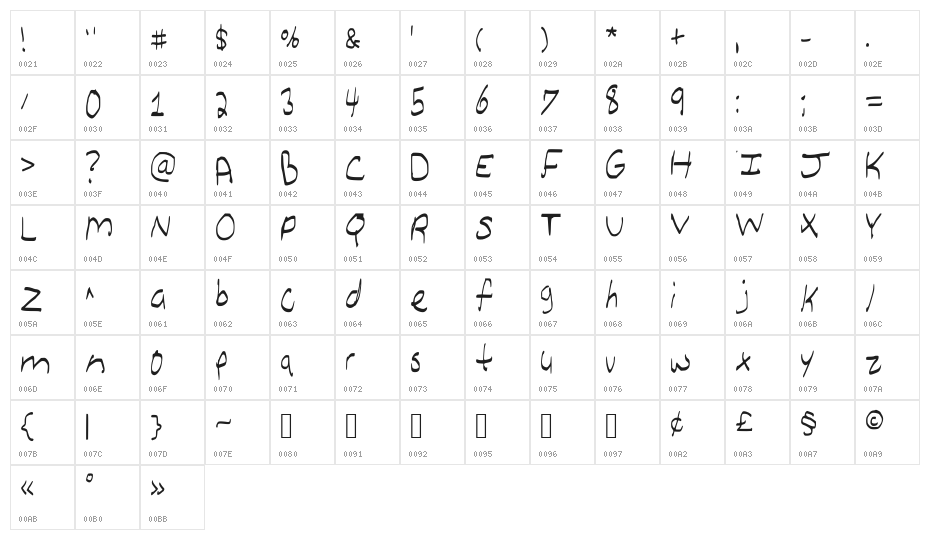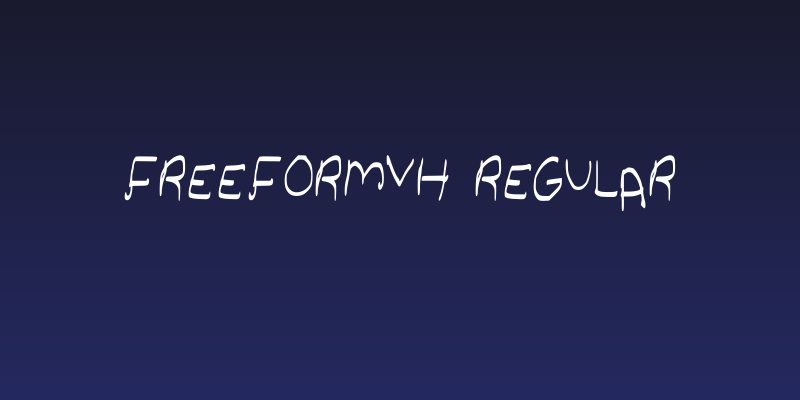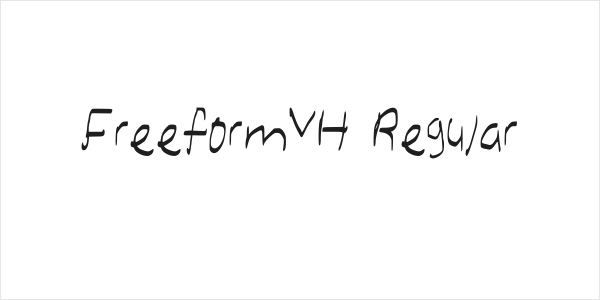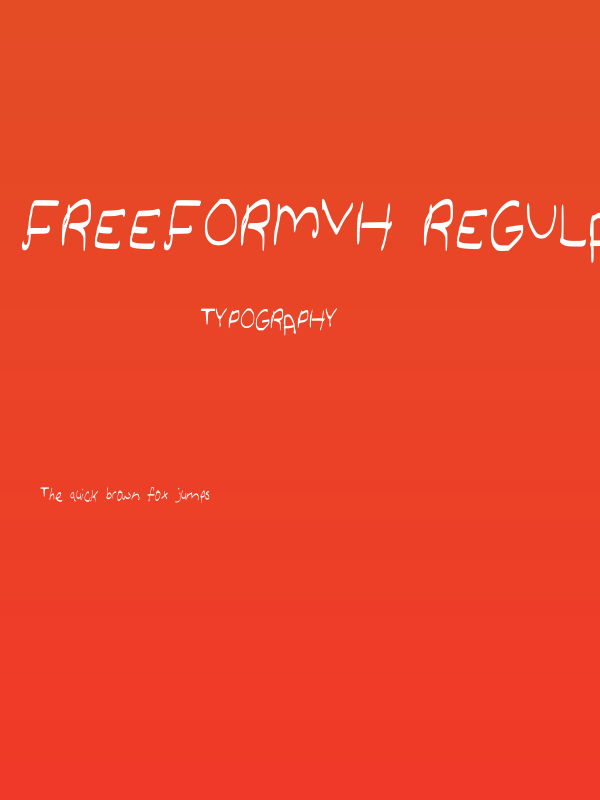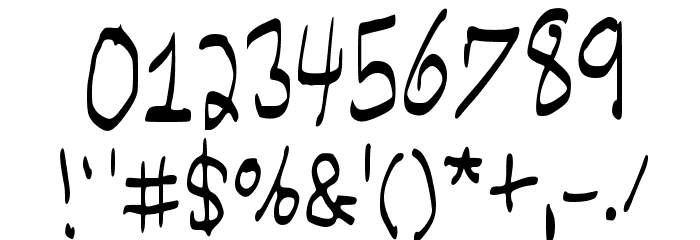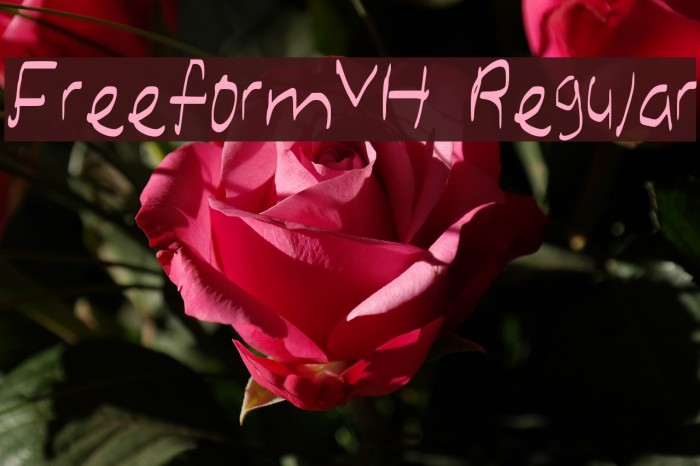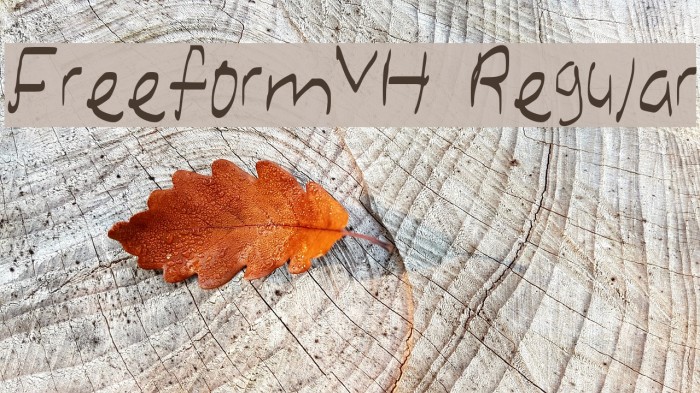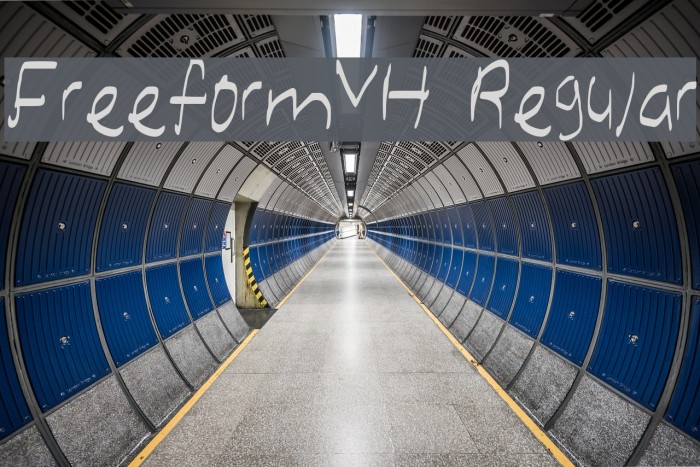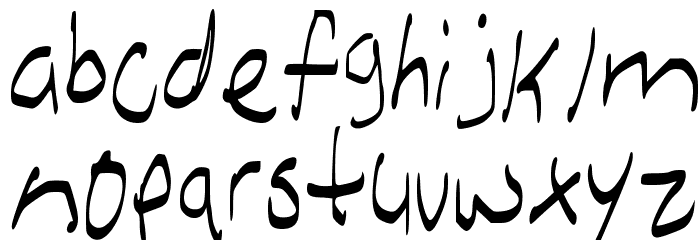
FreeformVH Regular Font
FreeformVH Regular Description
This font exhibits a playful and casual handwritten style, characterized by its irregular strokes and organic flow. The letters vary in size and shape, giving it a dynamic and spontaneous appearance. The uppercase and lowercase letters maintain a consistent style, with a slight slant that adds to its informal charm. The numbers and special characters follow the same freeform design, making it suitable for creative and artistic projects. The overall look is reminiscent of a personal note or sketch, offering a unique and approachable aesthetic.
| Proposed Projects | Ideal for creative projects such as greeting cards, personal notes, children's books, and informal branding. |